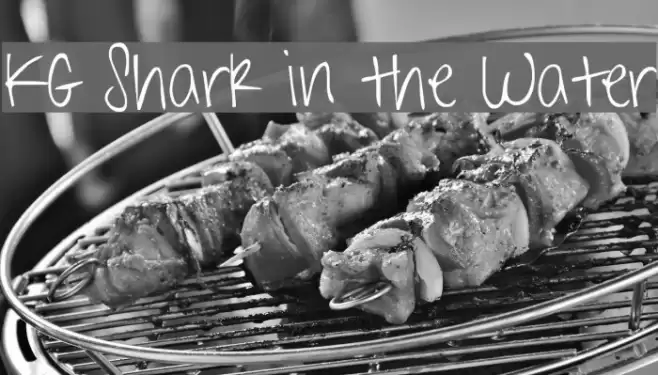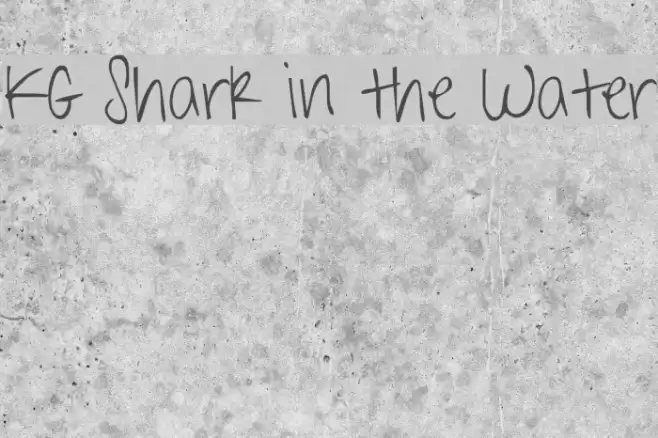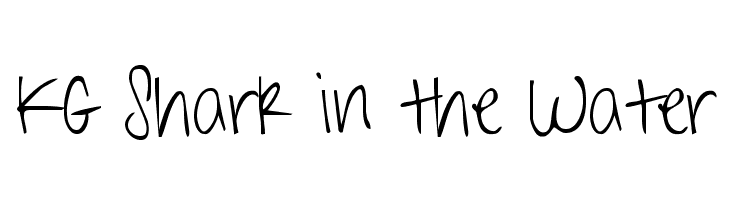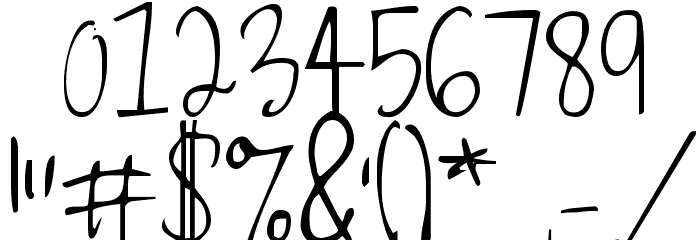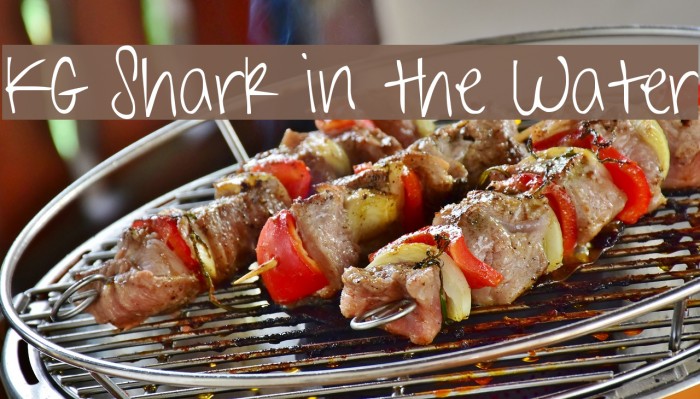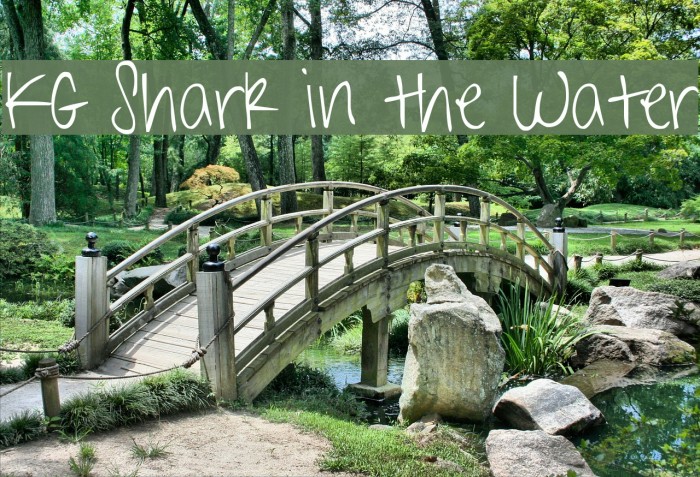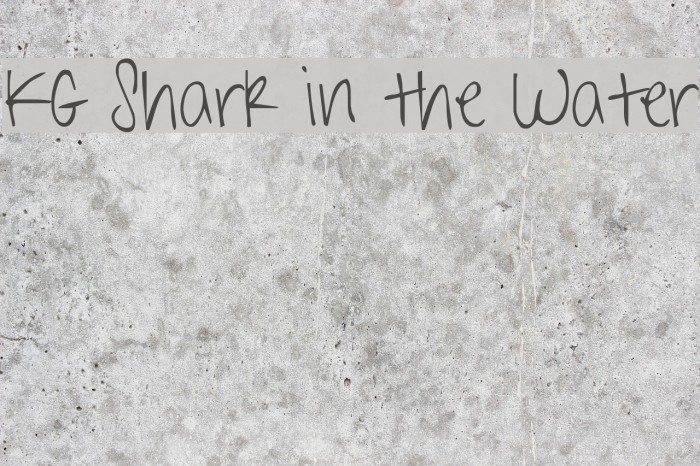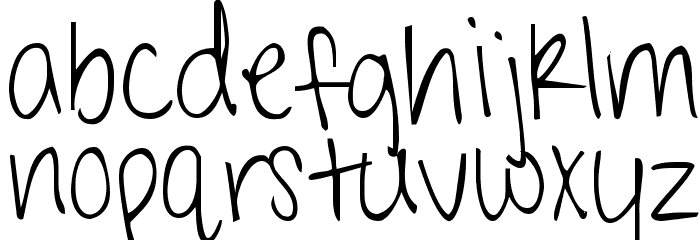
KG Shark in the Water Font
KG Shark in the Water Description
This playful and energetic font features a handwritten style with a casual and informal appearance. The characters are slightly slanted, giving a sense of movement and dynamism. The strokes are uneven, with varying thickness that adds a personal touch, reminiscent of a quick, expressive handwriting. The uppercase and lowercase letters are distinct, with a quirky charm that makes them stand out. The numerals and special characters maintain the same lively and informal style, making this font suitable for creative and fun projects.
A lively, handwritten font with a playful and informal style from Uncategorized fonts.
- Proposed Projects: Ideal for children's books, creative posters, greeting cards, and playful branding.
- Overall Style: Playful